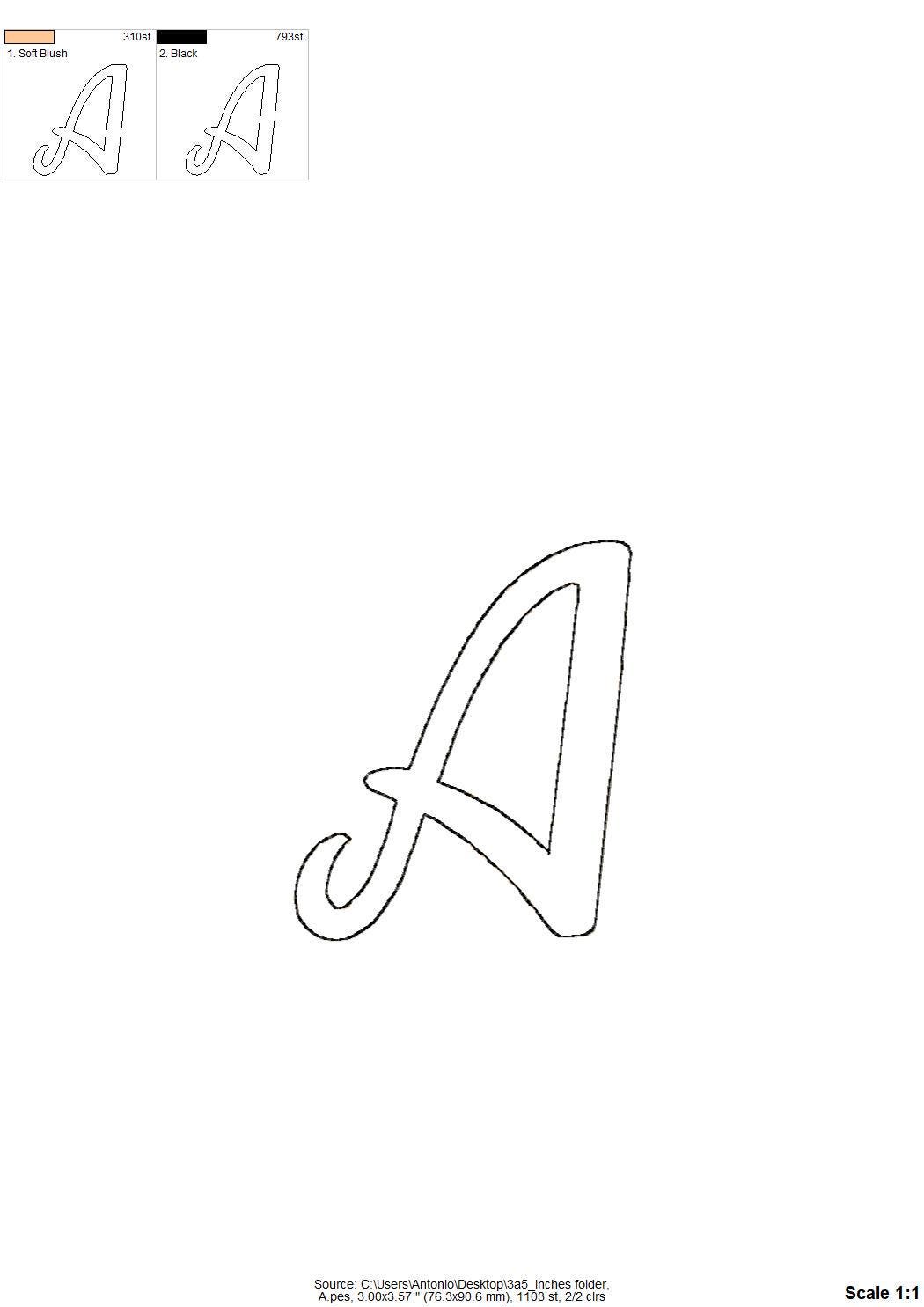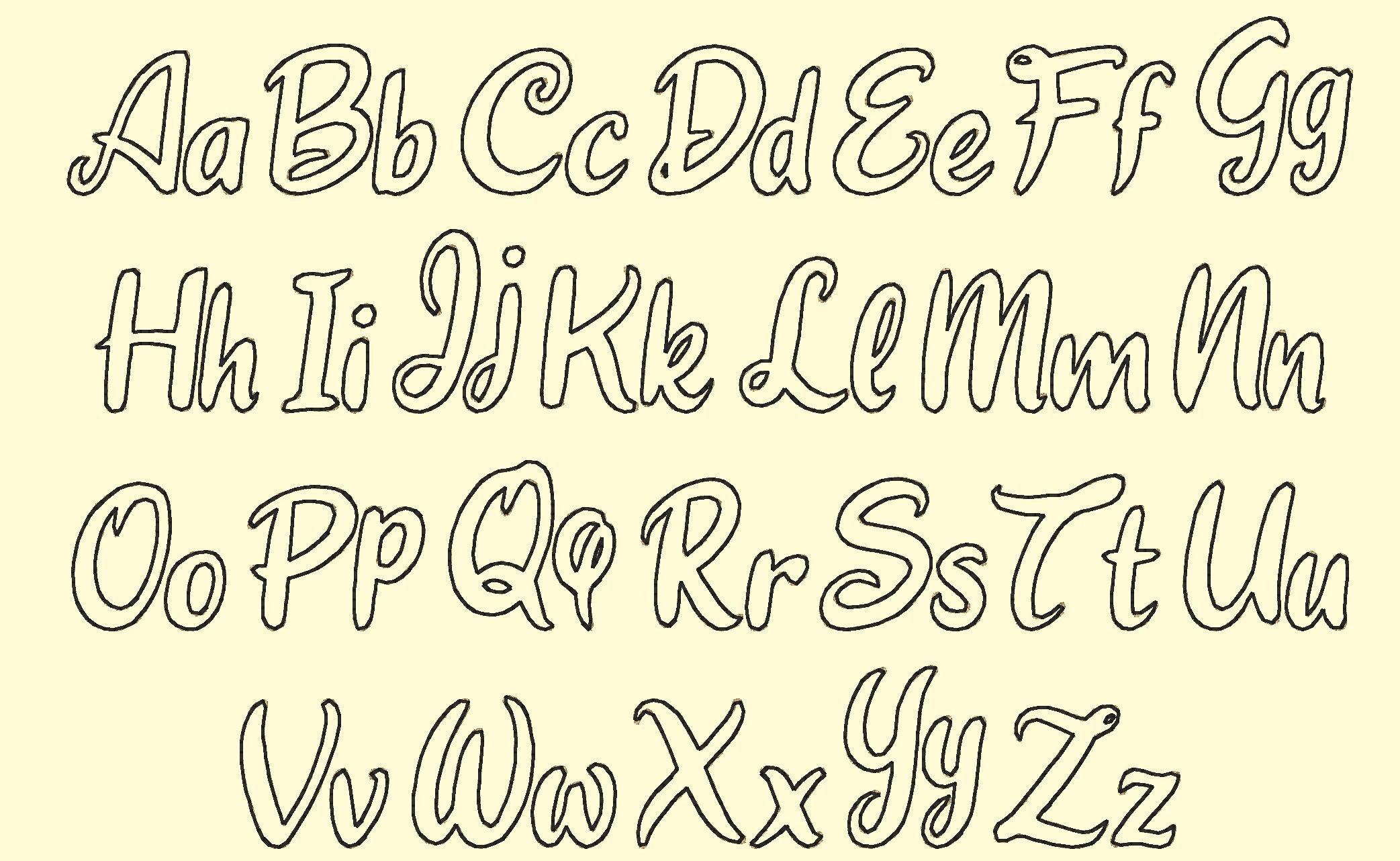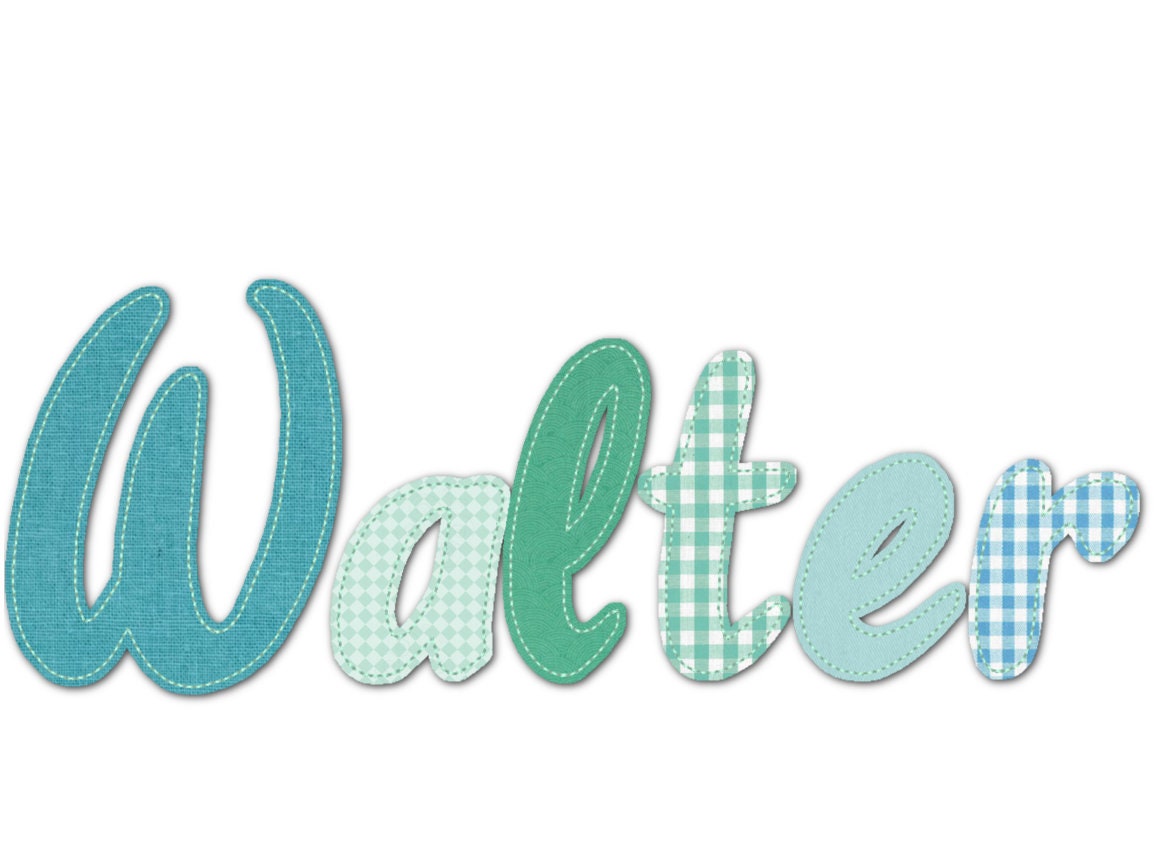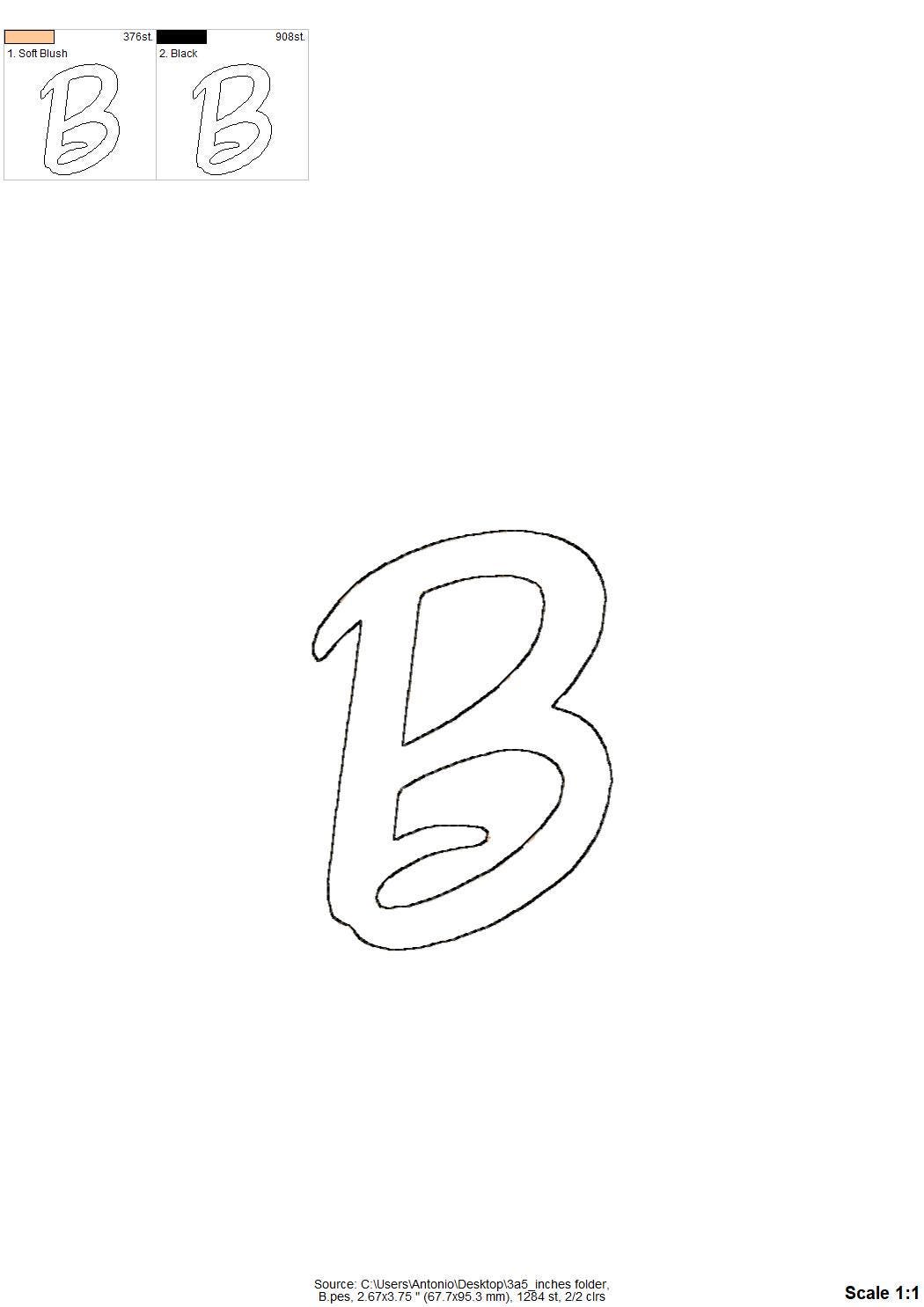
Free Edge Raggy Applique Alphabet Font machine embroidery designs in assorted sizes, uppercase, lowercase letters, kids boy monogram BX font
Raggedy edge Applique design